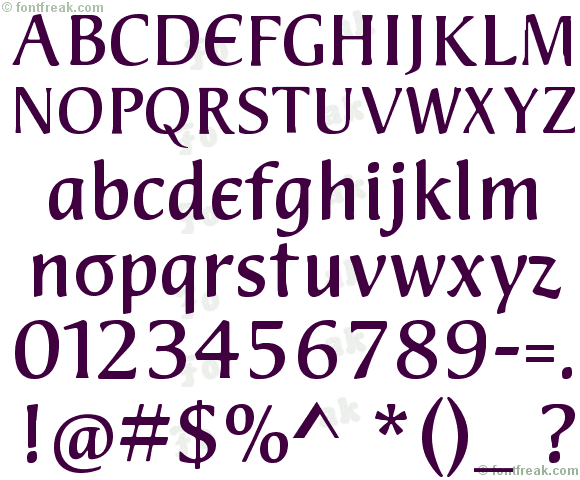
Welcome Y2K
Welcome Y2 is a captivating display font crafted by Cybapee Creations, embodying the vibrant spirit of the early 2000s with its unique Y2K aesthetic. This freeware font showcases a playful blend of bold strokes and soft curves, making it an excellent choice for various creative projects. Its distinctive character set features an even stroke weight that provides a sense of unity, while the moderate contrast in letterforms adds a touch of sophistication. The spacing is well-balanced, ensuring readability without sacrificing style, and the overall design incorporates whimsical elements that evoke nostalgia for the turn of the millennium.
The Welcome Y2 font is ideal for a multitude of applications. It shines in wedding invitations, where its charming personality can add a whimsical touch to the event's theme. For movie posters, the font's boldness can draw attention and create excitement, making it perfect for indie films seeking to capture the essence of the Y2K era. Additionally, its playful design is excellent for restaurant menus, particularly in establishments that embrace a fun and modern vibe. Small business owners looking to create a memorable brand identity will find this font invaluable for logos and promotional materials. Content creators can also leverage the Welcome Y2 font in social media graphics, adding a unique flair to their visual storytelling.
Targeted towards graphic designers, small business owners, and content creators, Welcome Y2 stands out for its ability to evoke emotion while remaining versatile. Its unique design and nostalgic appeal make it a must-have for anyone looking to capture the essence of a bygone era. Download the Welcome Y2 font free today and infuse your projects with a touch of playful elegance that truly makes a statement.